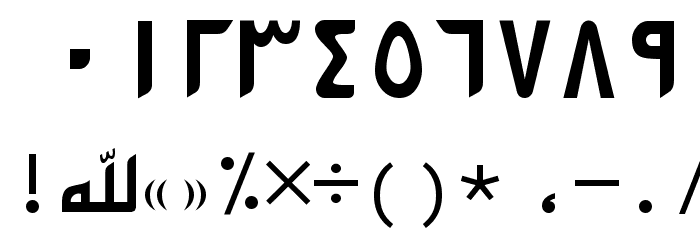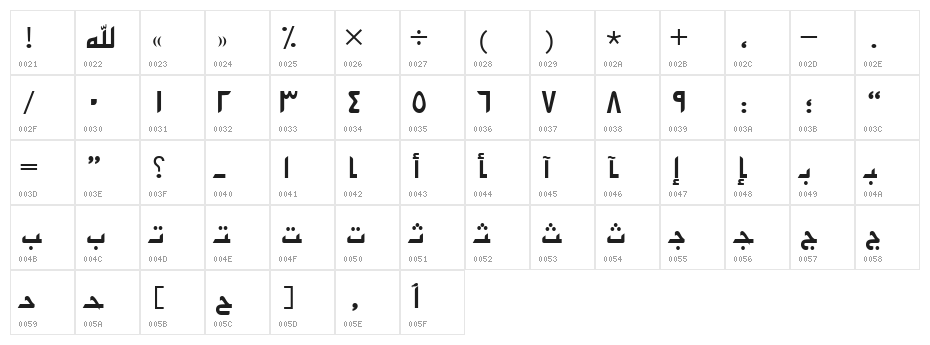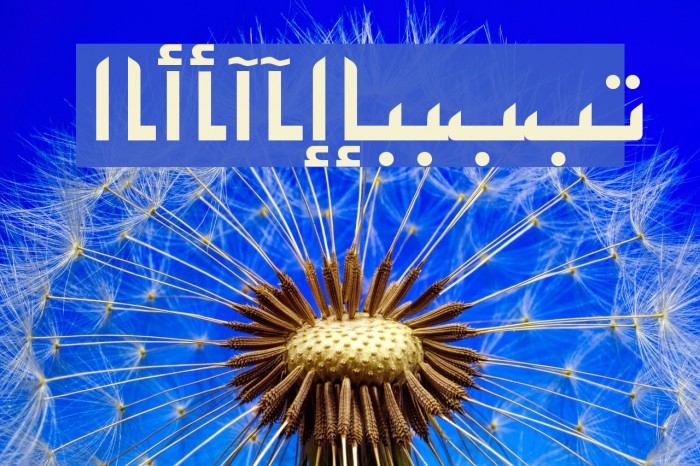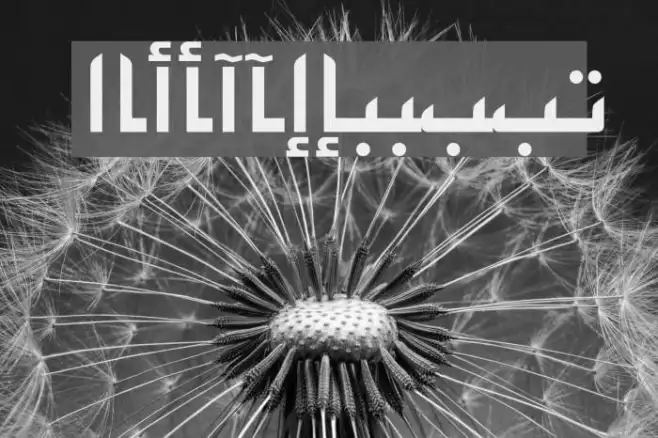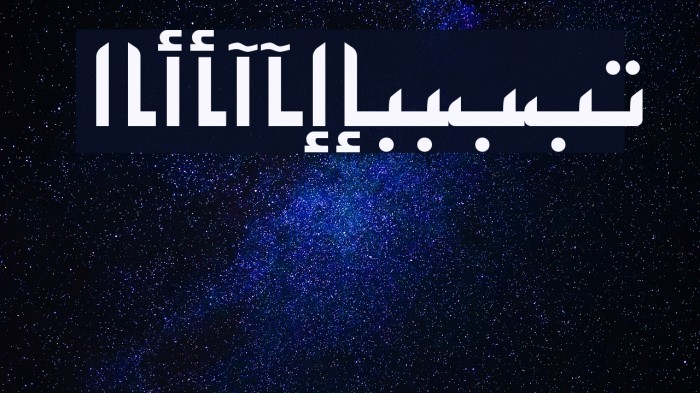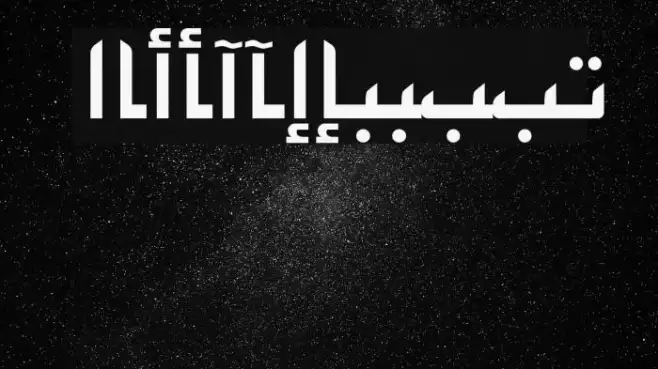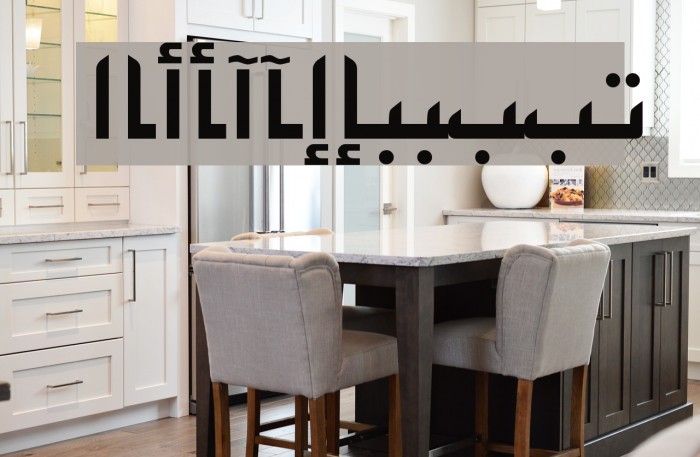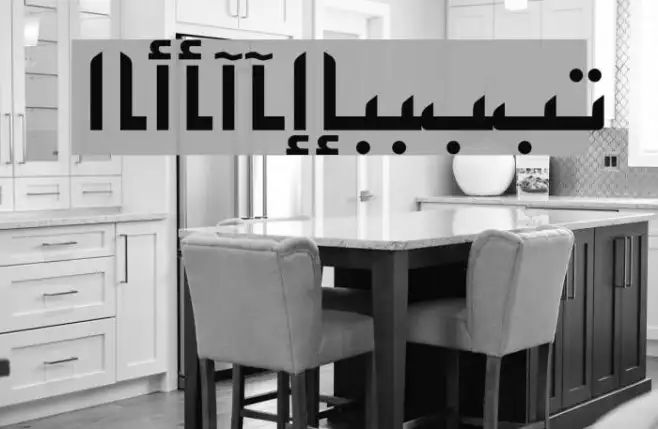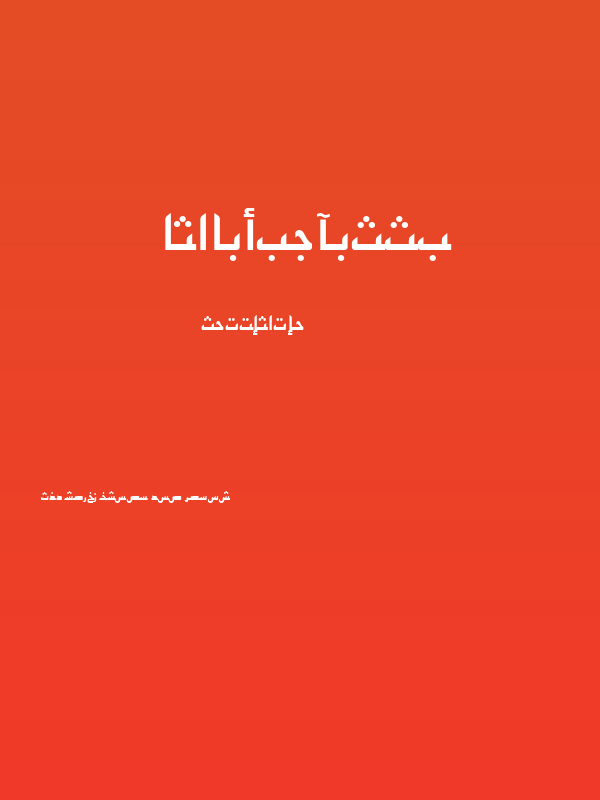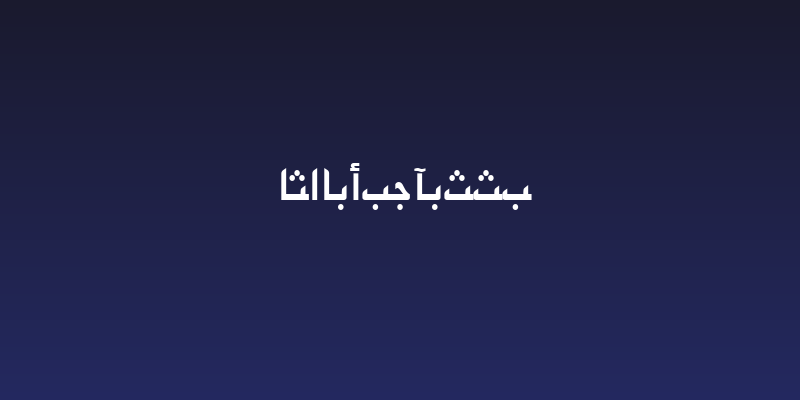
ArabicKufiSSK Font
ArabicKufiSSK Description
This font features a bold and geometric style, characterized by its strong, angular lines and uniform stroke width. The characters are structured with a modern interpretation of traditional Kufi script, offering a contemporary twist to classic Arabic calligraphy. The font maintains a consistent baseline and x-height, providing a balanced and harmonious appearance. Its design is both functional and decorative, making it suitable for a variety of applications. The numerals and special characters are crafted to match the overall aesthetic, ensuring a cohesive look across all elements.